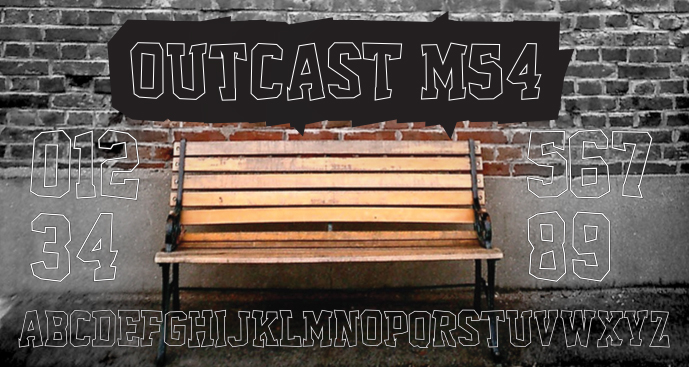
Just a font I ended up with after messing around with my ‘Superstar M54’ font that I created. I think it would be cool for signature art. The upper and lower case letters are different so switch between the two for a more hand drawn feel. The left and right curly brackets hold alternate glyphs for numbers '2' and '5'. If you find this font useful then please consider a donation to justme54s[at]yahoo.co.uk, any amount will be greatly appreciated. A donation isn't necessary to use this font for personal or non-commercial use. I'll be interested to know how people use it so a picture or artwork sent to justme54s[at]yahoo.co.uk would be nice. If you wish to use this font commercially a donation or license is required, please email for further information. Alternatively, for one time commercial use just send details of usage along with your donation so that a return email can be sent as proof of rights to commercial usage. Usage Agreement You may not host this font anywhere online as it is hosted exclusively at FontSpace.com and Dafont.com. Any links for downloads should be directed to FontSpace or Dafont. You may share the font electronically but the Zip file should remain intact with the font alongside all other files as packaged. You may not sell this font, but are allowed to distribute it freely i.e. in magazines. |